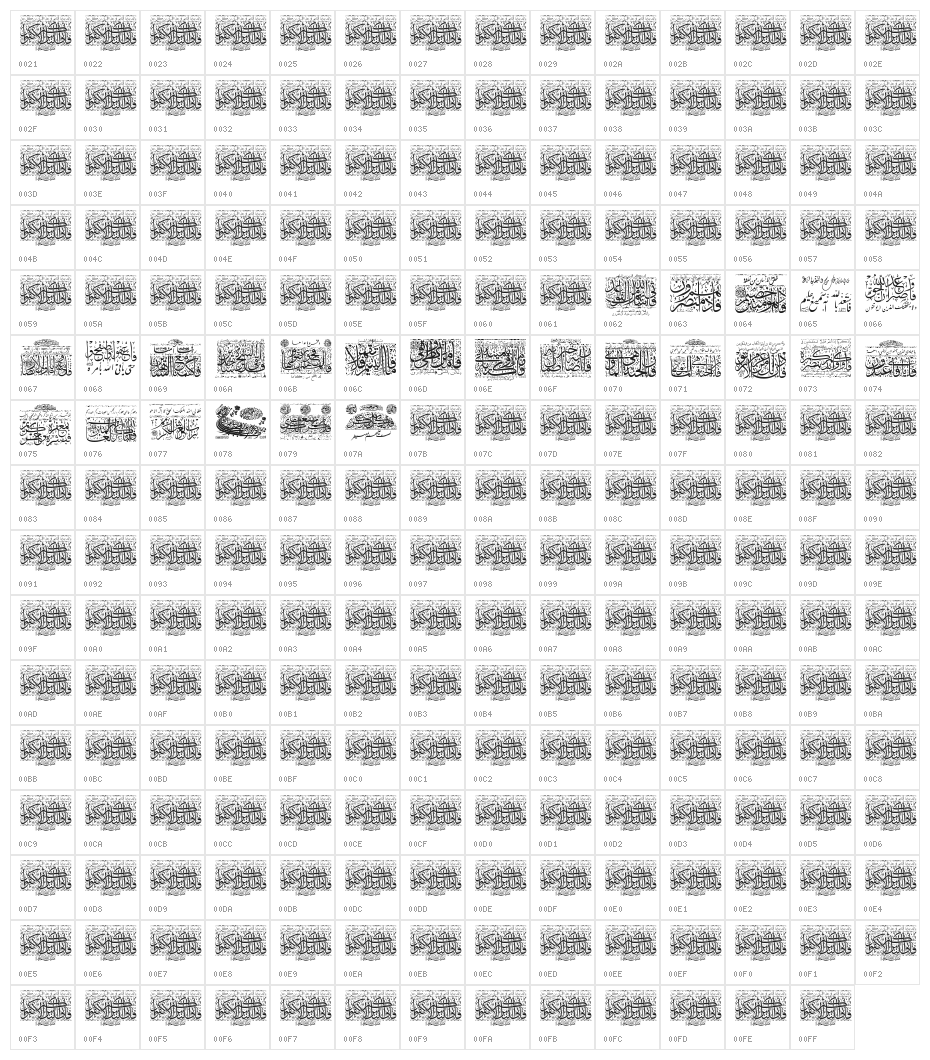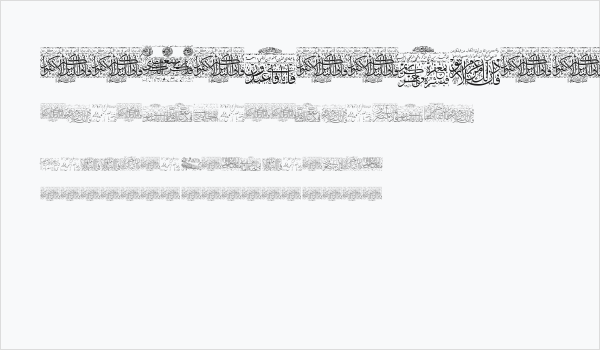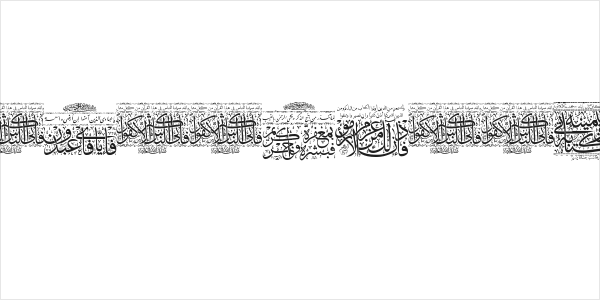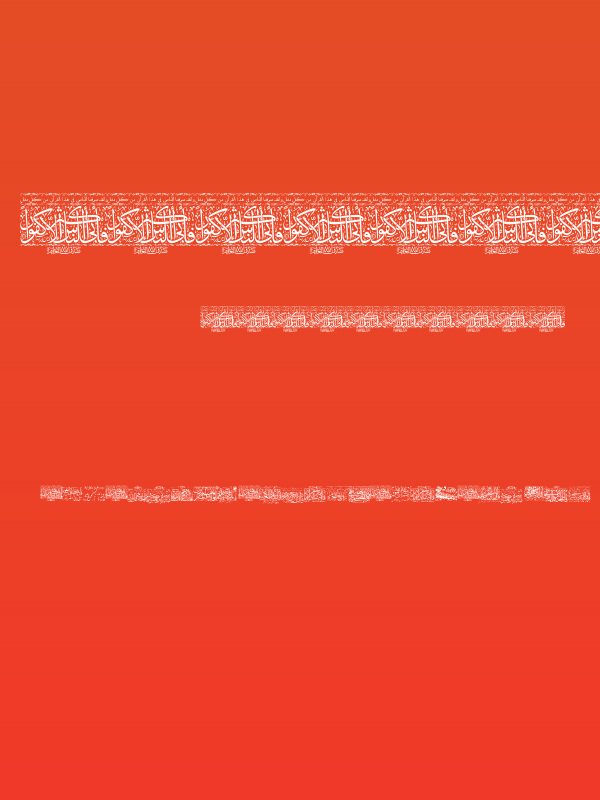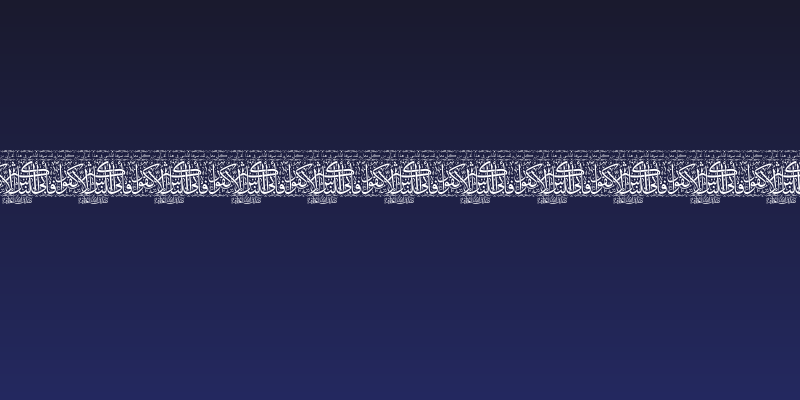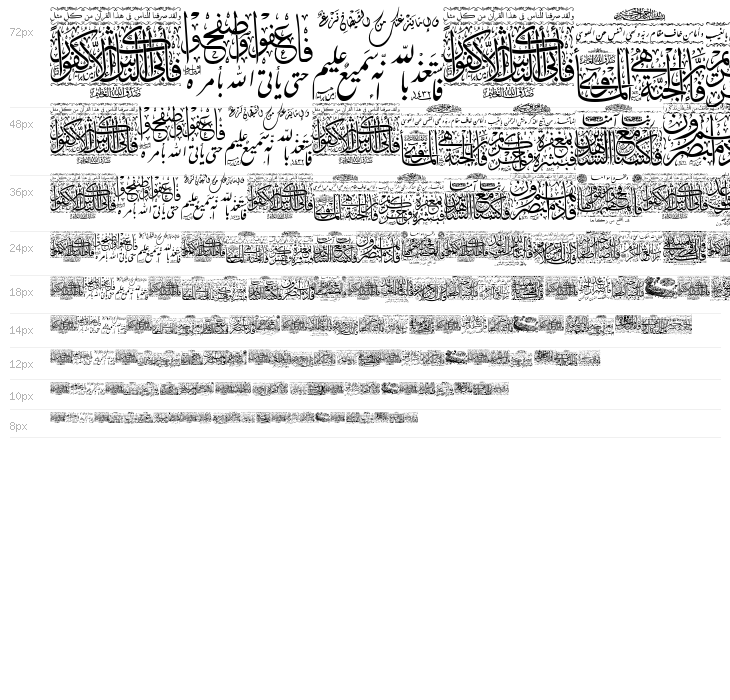
Aayat Quraan 26 Font
Aayat Quraan 26 Description
Highly ornate Arabic script with intricate calligraphic flourishes, dense line work, and decorative elements, designed for religious or ceremonial use. The script features thick and thin strokes, with elaborate connections and extended swashes, creating a visually rich and complex appearance.
| Overall Style | Decorative, Traditional, Religious |
| Use Case | Religious texts, Art pieces, Decorative headings |
| Proposed Projects | Religious manuscripts, ceremonial documents, Quranic verses, decorative panels, Islamic art. |